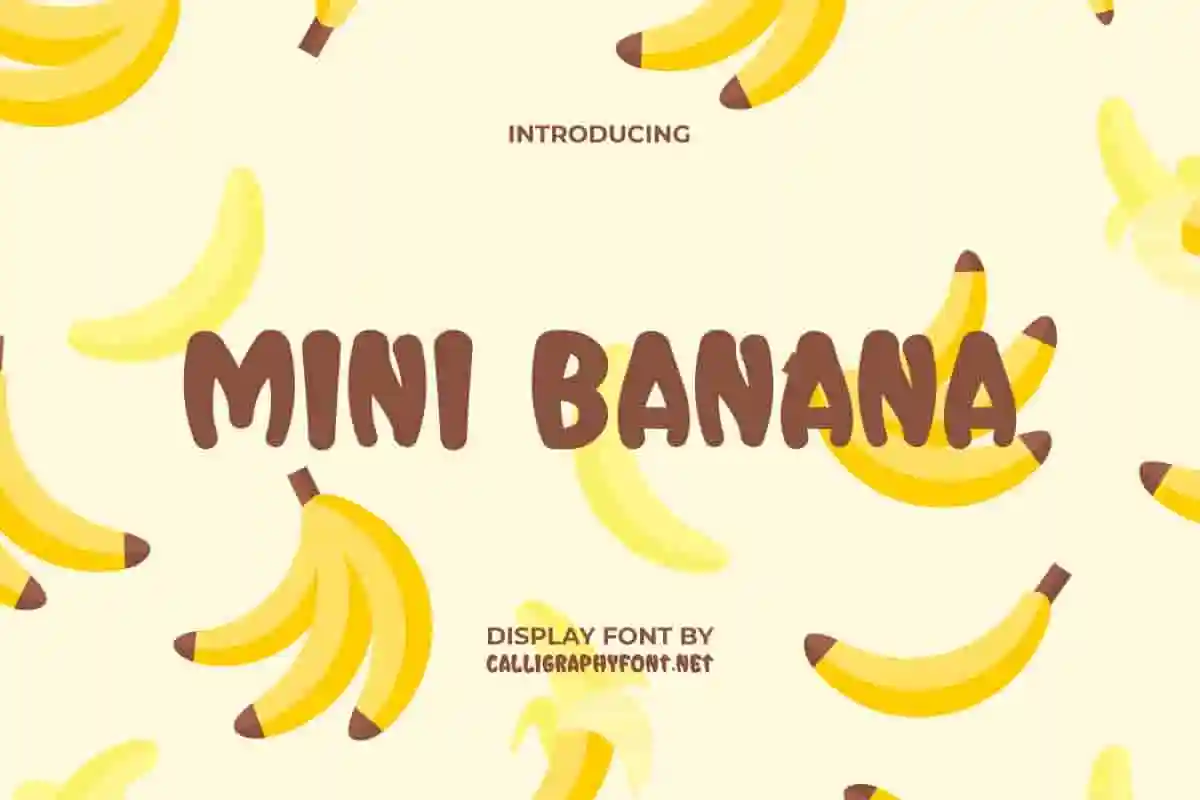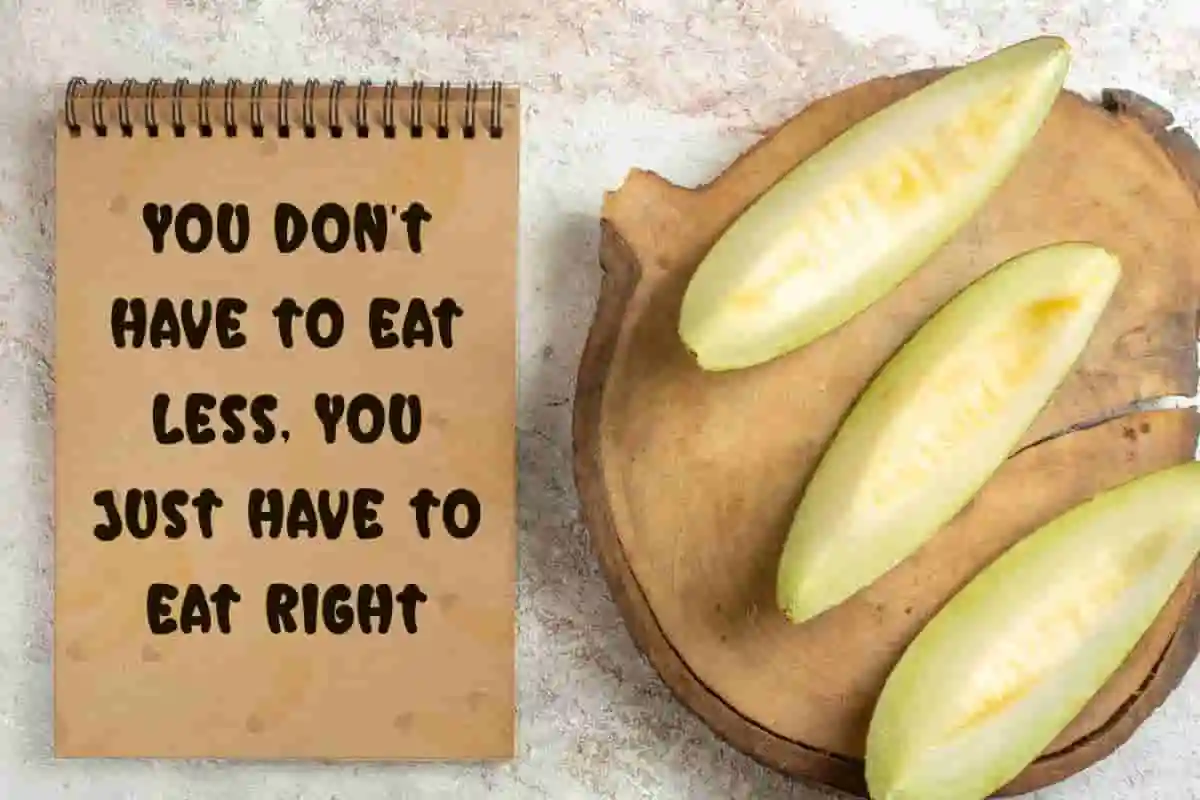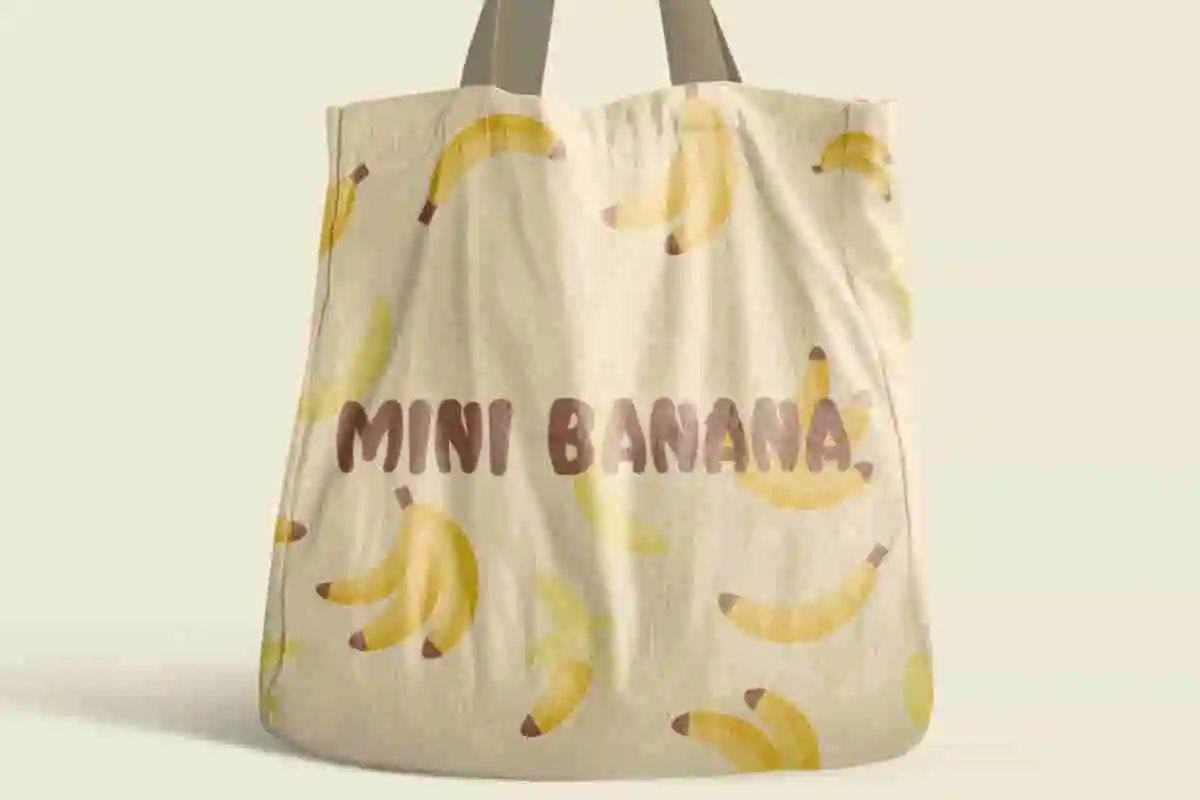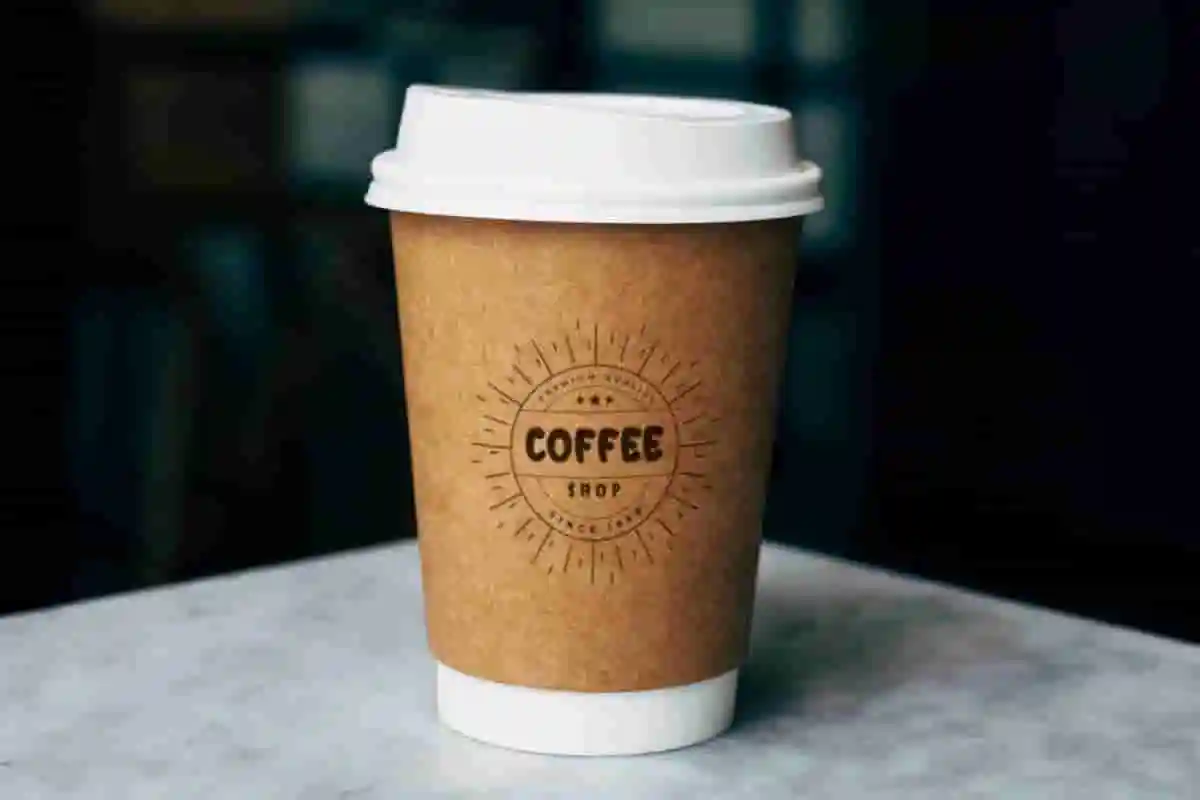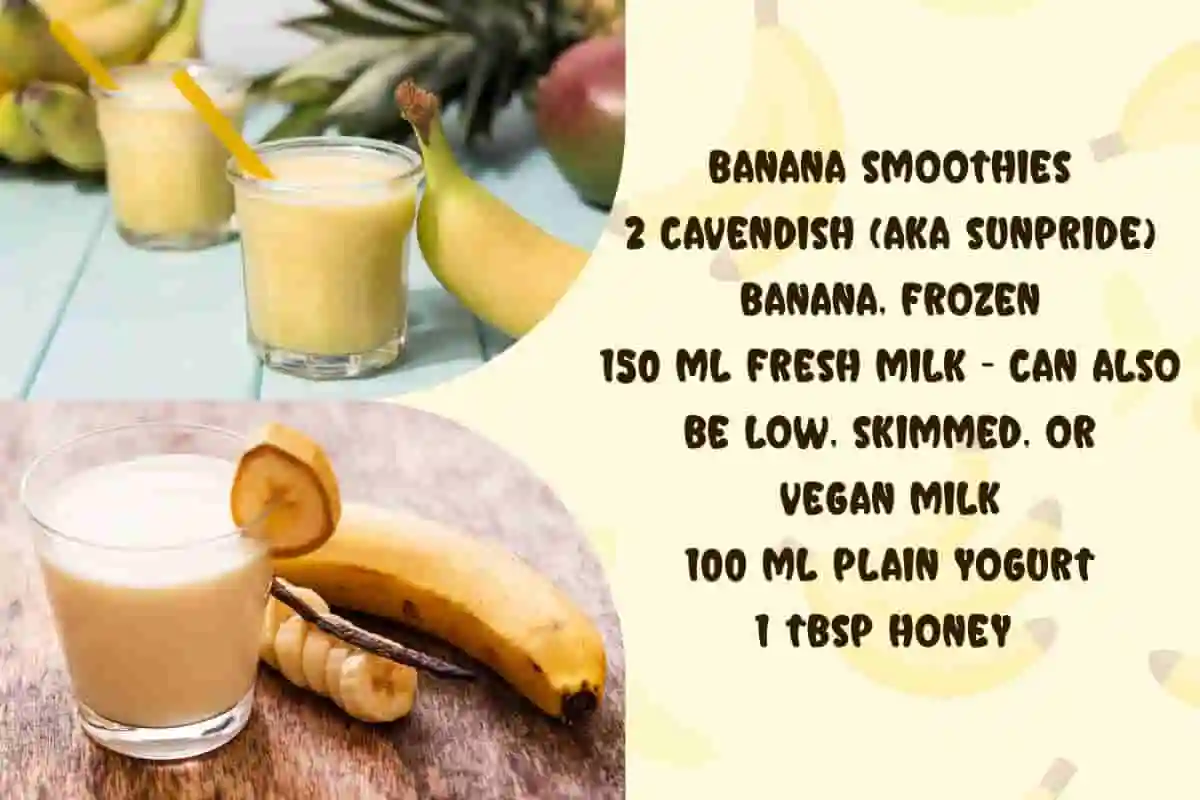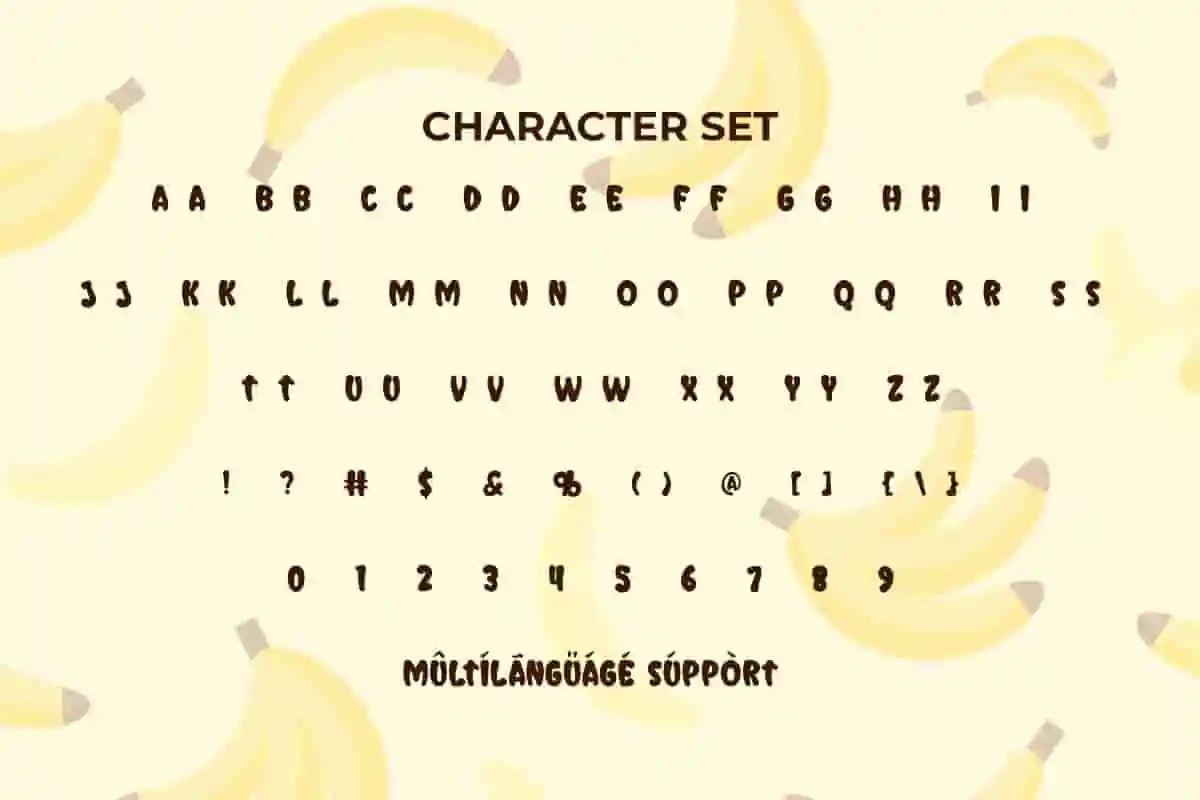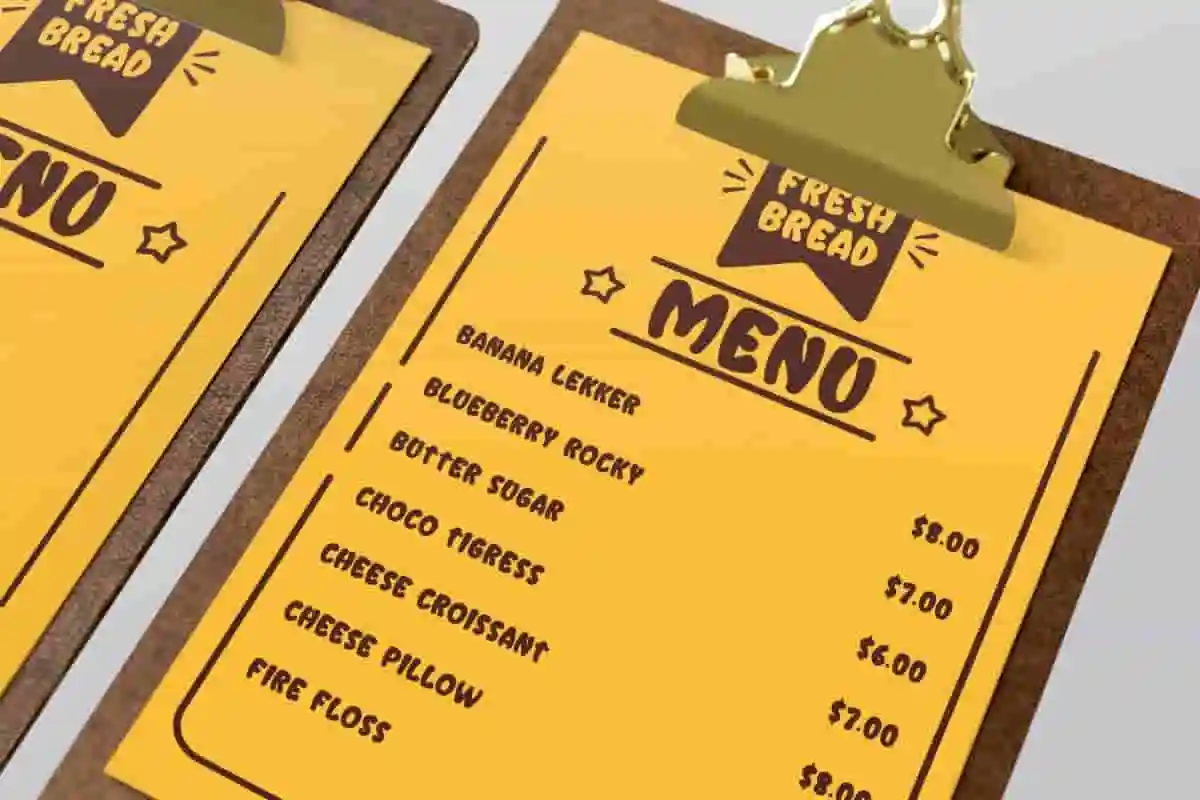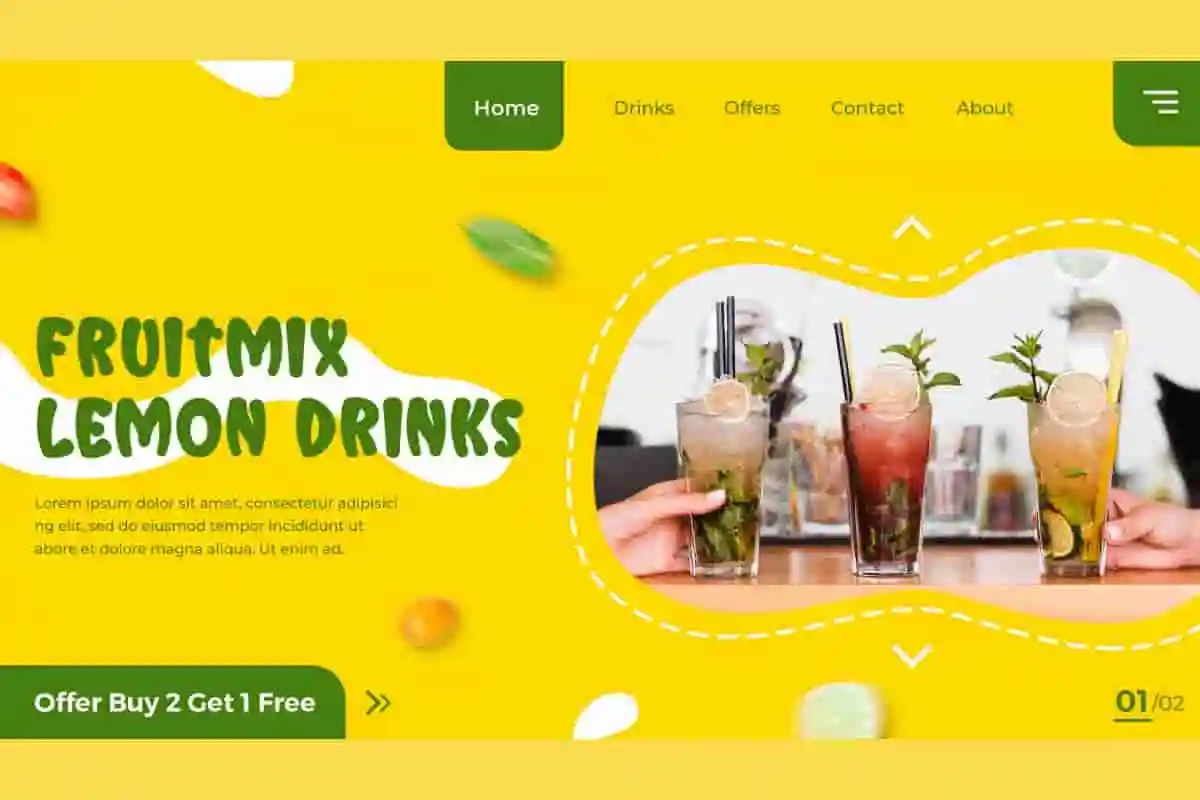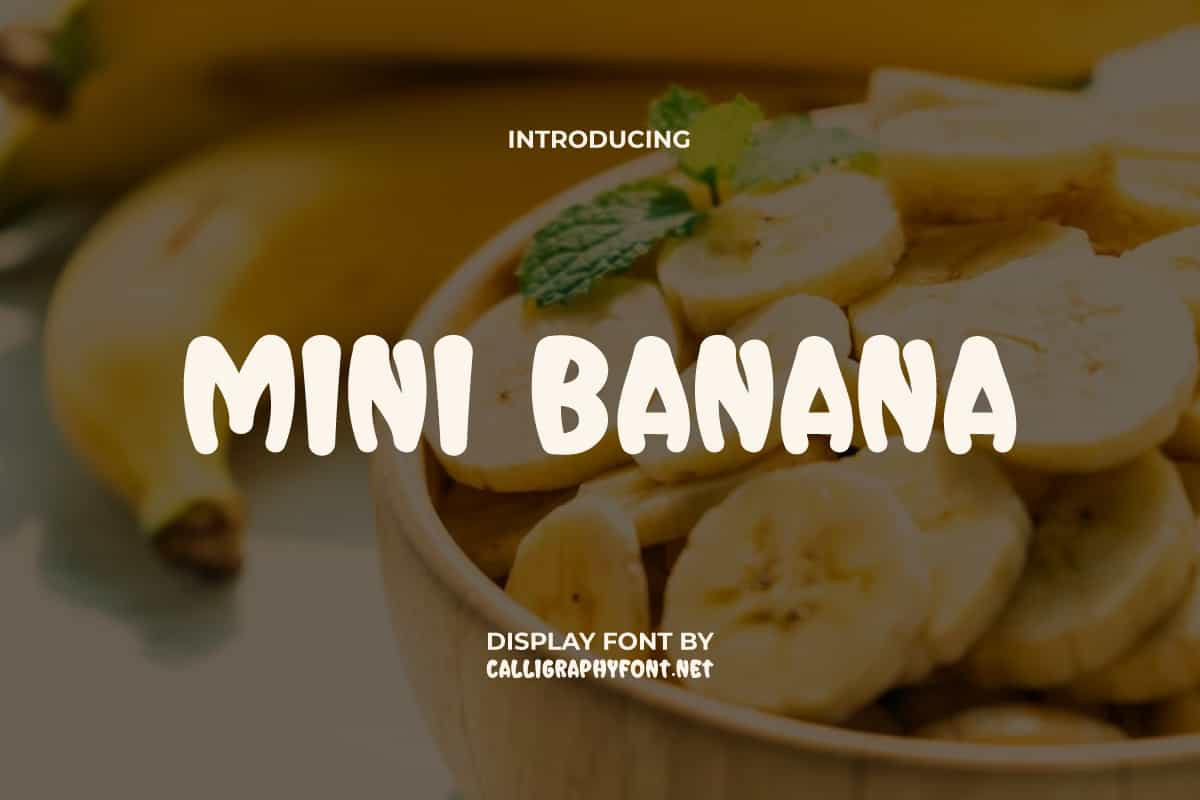
Mini Banana Display Font
Mini Banana Font is a cute and catchy display which will give an adorable modern and stylish to each character! Versatile for any type of project such as for titles, webpage, and advertising purposes.
Mini Banana Font is a cute and catchy display font. This font is bold and short, like representing a small banana ready to be eaten. It will be good to complement any project design, such as brand image, brochure, cover, custom design, flyer, invitation, label, marketing material, menu board, poster, signage, stationery, screen print, sticker, thank you card, title, website page, and many more!
Looking for a playful and eye-catching font that makes your designs pop? Meet Mini Banana Display Font — a vibrant, bold, and fun typeface perfect for adding a splash of personality to any project! Mini Banana is designed with quirky, chunky letterforms that bring energy and a sense of whimsy to your headlines, logos, posters, packaging, and social media graphics. Whether you’re working on children’s books, party invitations, branding, or product labels, this display font stands out with its unique style and cheerful vibe.
Bring energy and personality to your projects with Mini Banana Display Font, a vibrant and playful typeface designed to make your text stand out. Perfect for bold headlines, creative branding, party invitations, children’s books, and social media posts, this font adds a unique, cheerful vibe to any design. Mini Banana’s chunky, quirky letterforms are crafted to catch the eye and convey a sense of joy and creativity.
Inject some fun and freshness into your creative projects with Mini Banana Display Font — a lively and bold display font designed to capture attention and spread good vibes. With its chunky, playful letterforms and quirky character, Mini Banana is perfect for projects that want to stand out and feel approachable.
- Playful & Bold Style
- Complete Character Set
Mini Banana Font can make each of your designs look funny with its style, so it can be used by various industries, such as advertising, bakery and pastry, content creator, event or festival, fashion, food and beverages, graphic design, handicraft, interior design, kids stuff, printing, publishing, restaurant, etc.
Mini Banana Font comes with a full set of ALL CAPS for Uppercase and Lowercase Basic Characters, Number, a large range of Punctuation, and Symbol. It also comes with multilingual character support. Ready to use both on Windows machine or Mac with simple installations. It’s tested to work well in the Adobe Apps (Illustrator, Adobe InDesign, Adobe Photoshop) CorelDraw, and others. PUA Encode Characters means you can access all the characters easily – Fully accessible without additional design software.